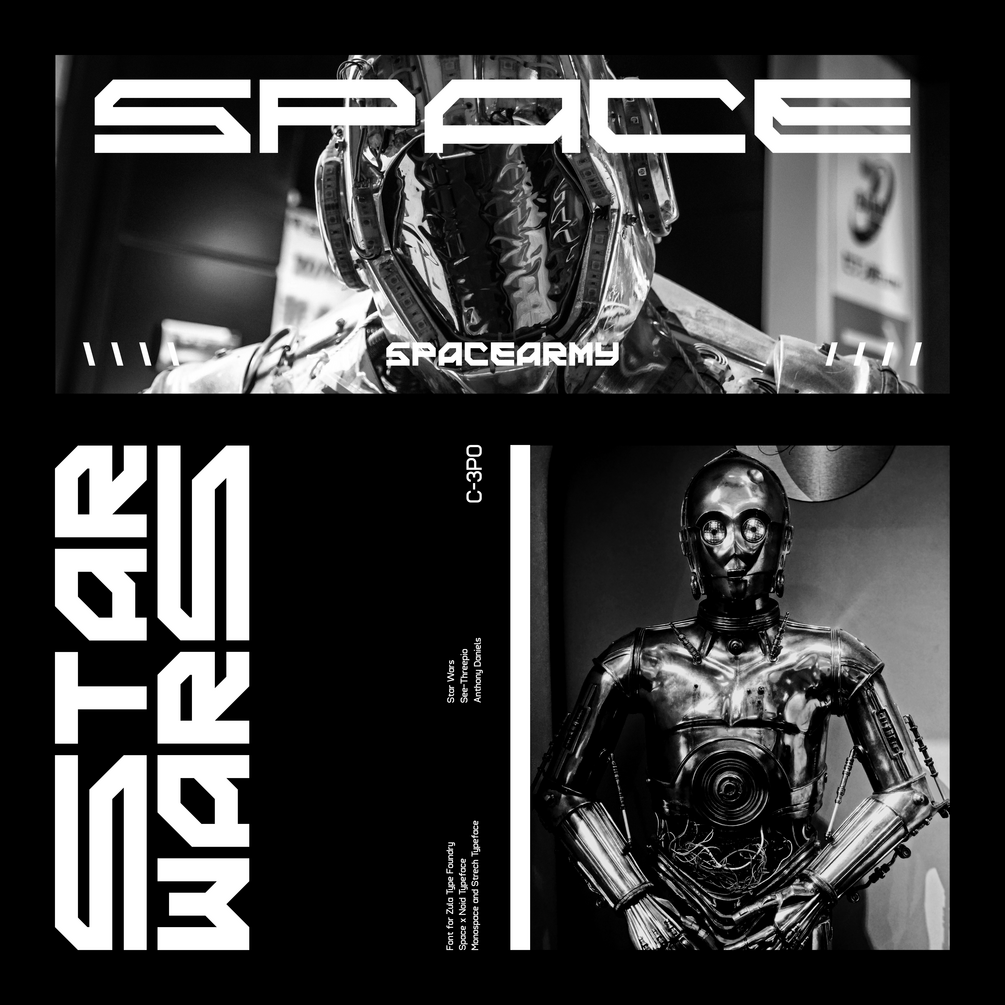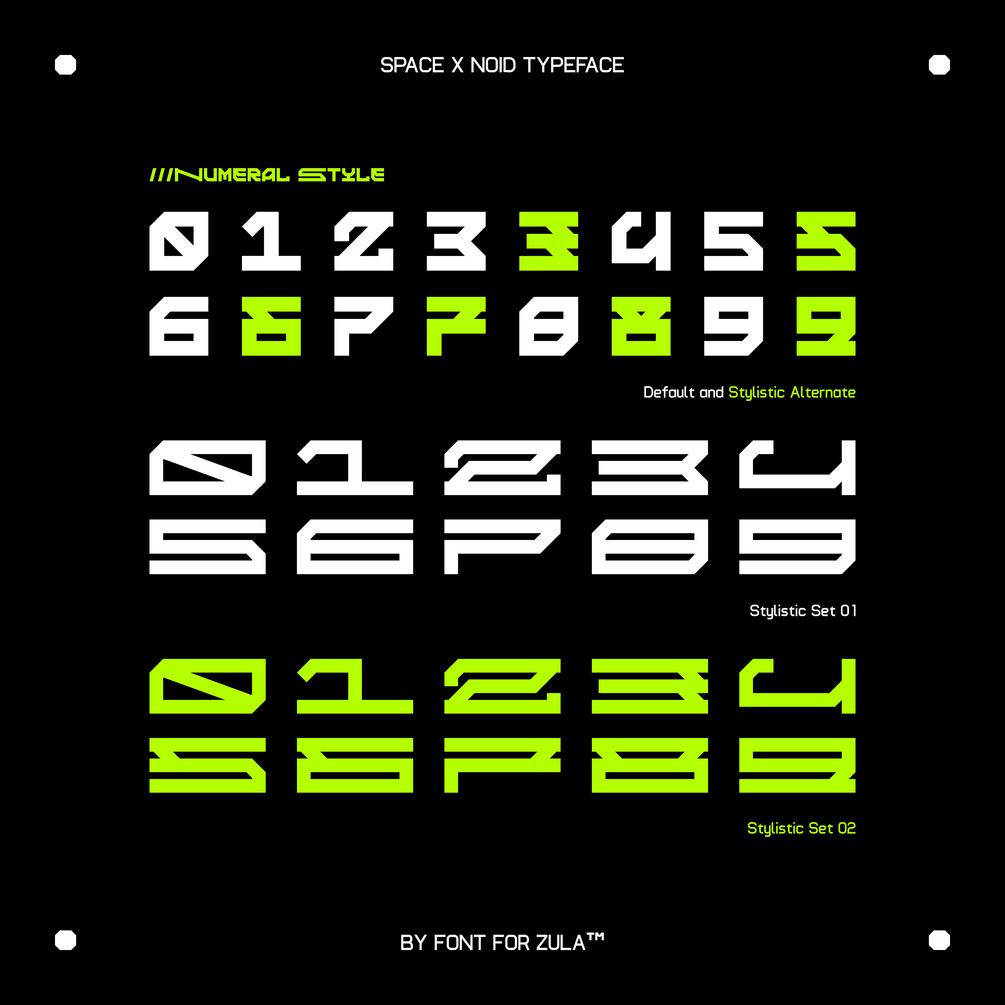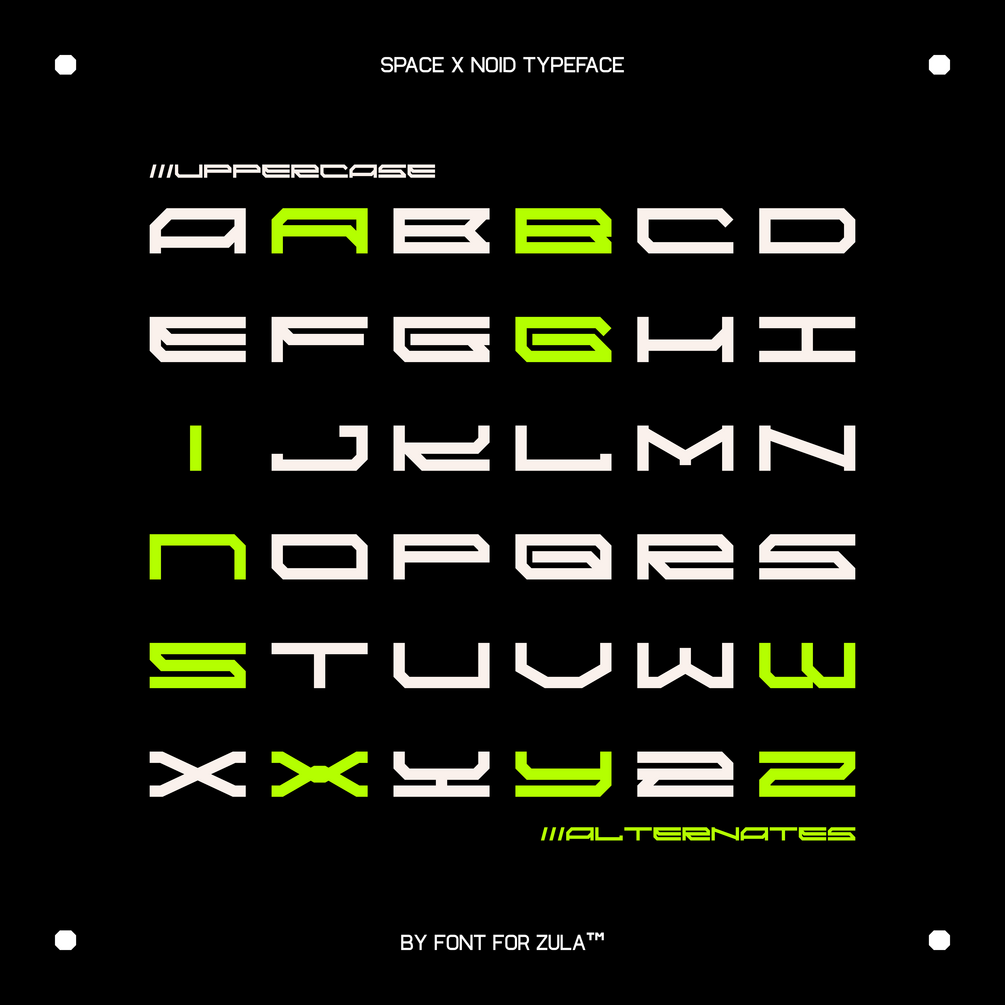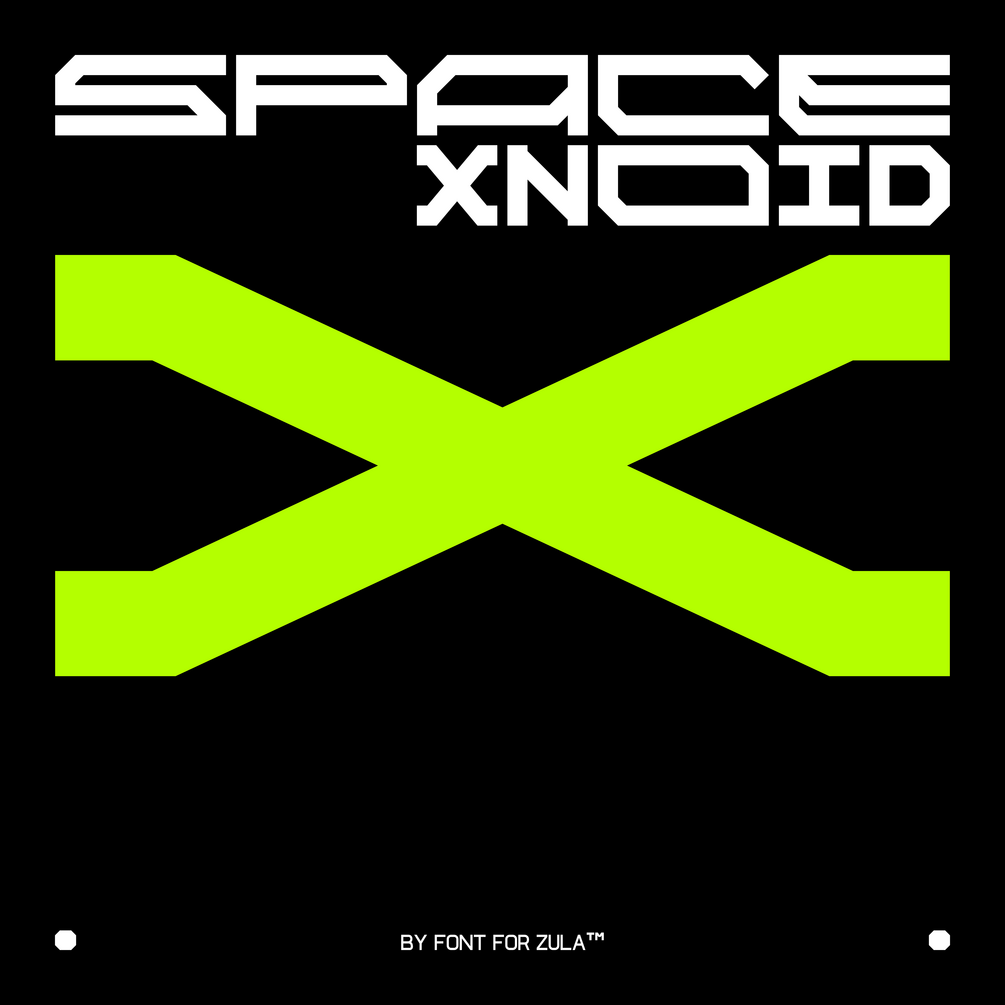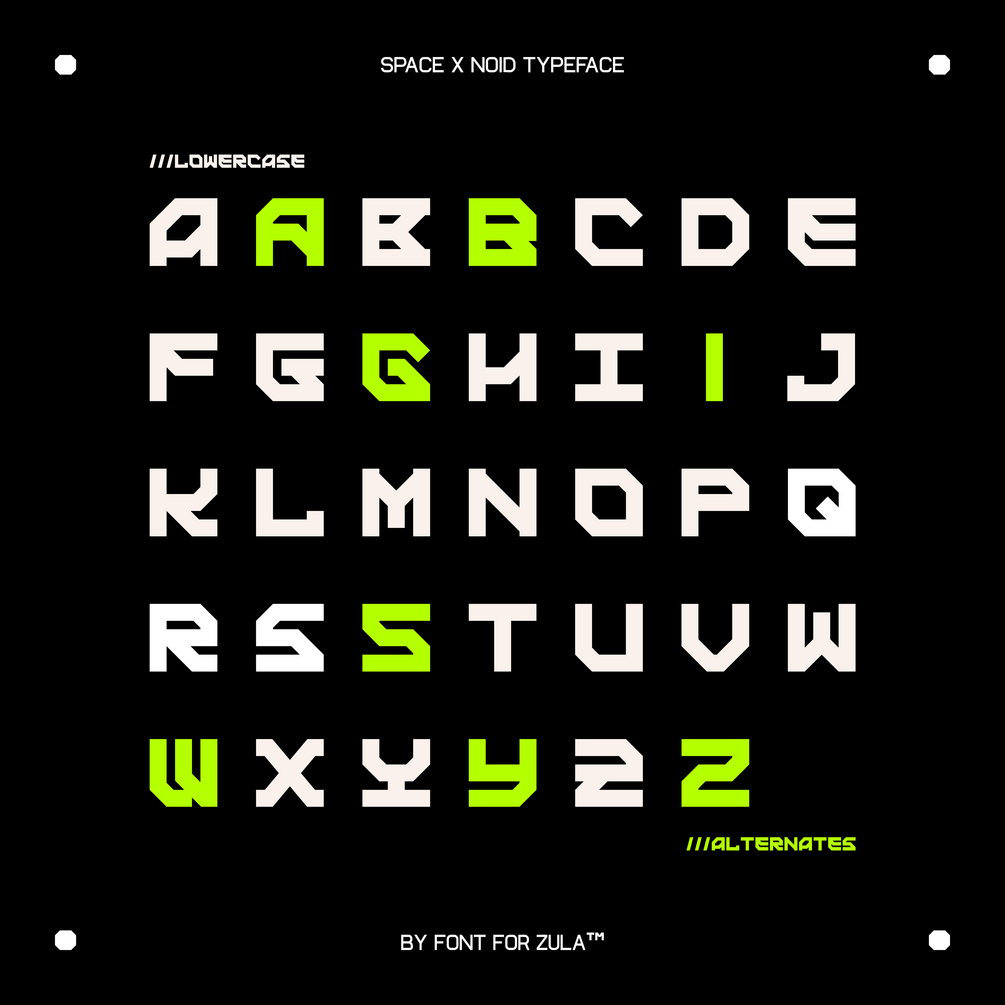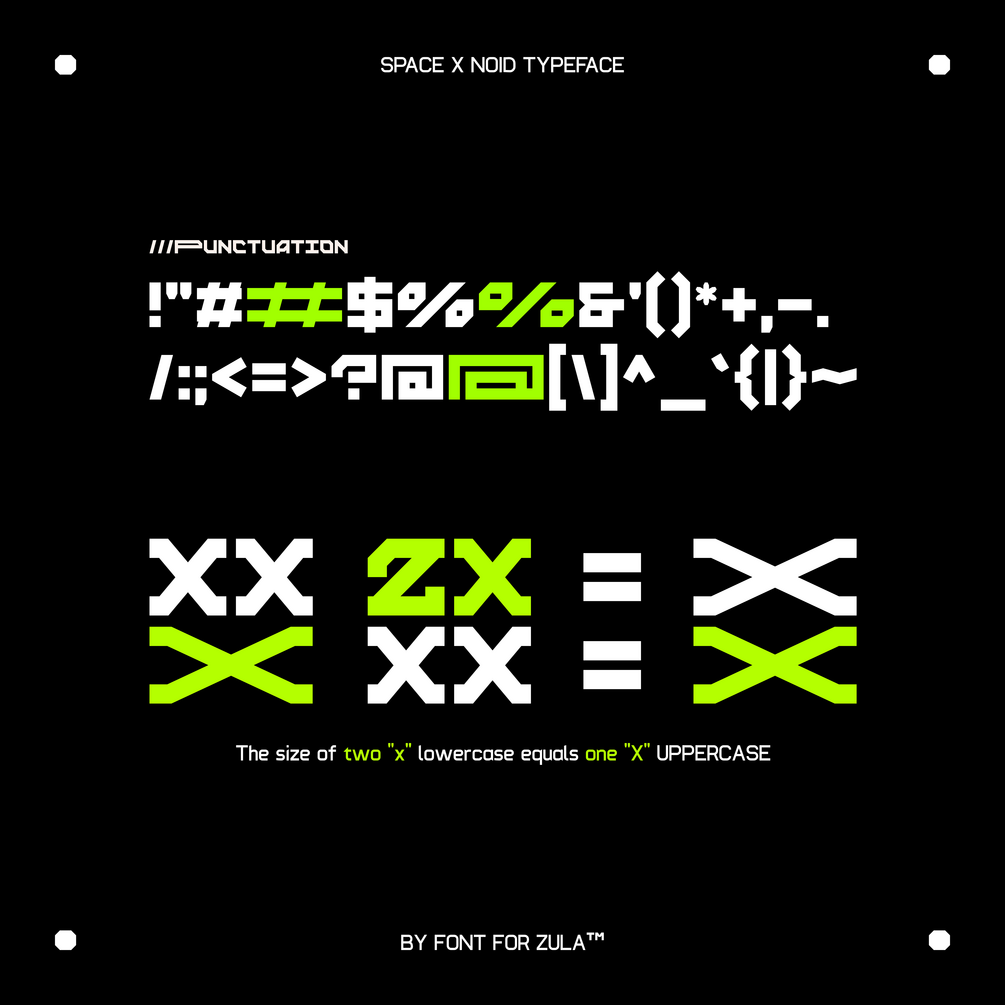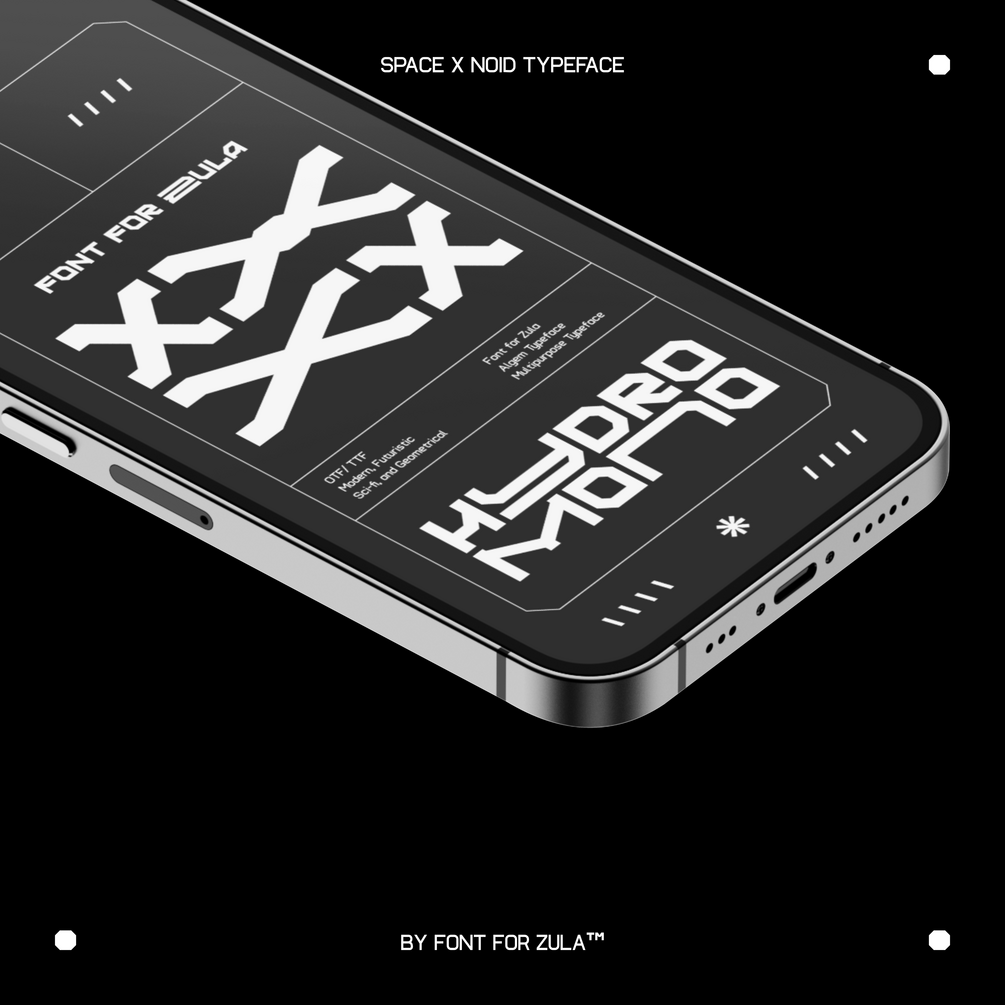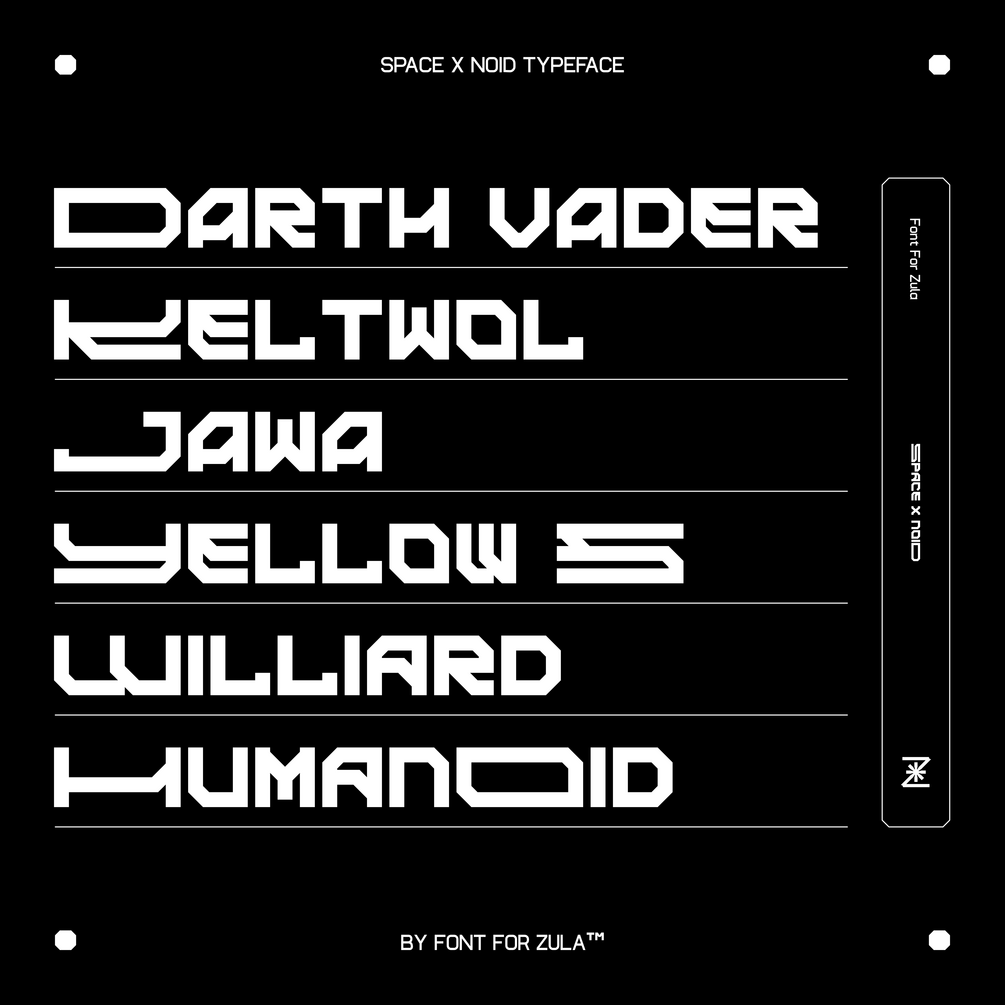
SPACE X NOID
THERE ARE INTERESTING BONUS FILES | Space X Noid is a typeface of modern and elegant letterforms. One of the uniqueness of this typeface lies in how easy it is to combine stretch letters with regular letters. This typeface is suitable for various purposes such as apparel, branding, posters, logos, and more.
Space X Noid Typeface is brought to you by Font For Zula™
– Uppercase (26) Alternate (10)
– Lowercase (26) Alternate (9)
– Numbers (10) Alternate (6) SS01 (10) SS02 (6)